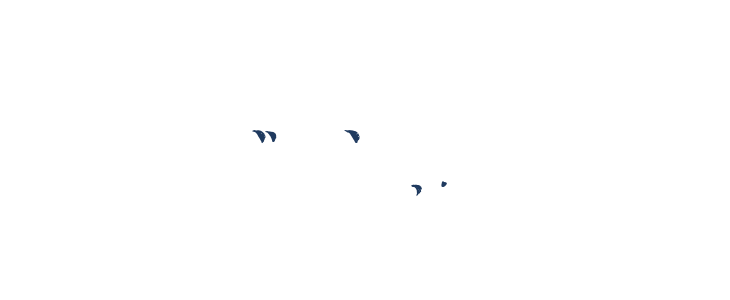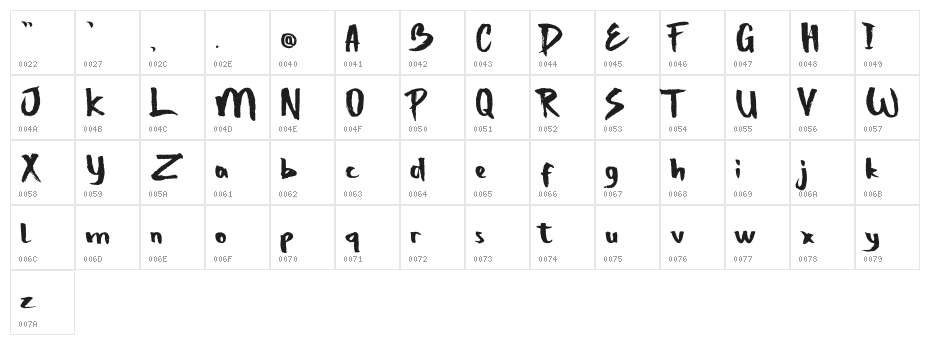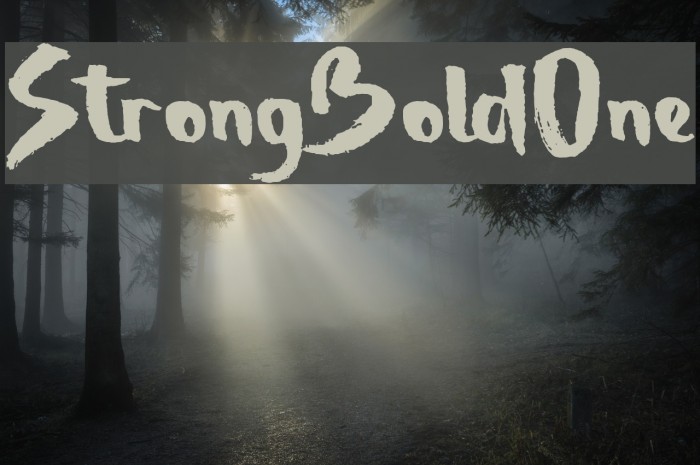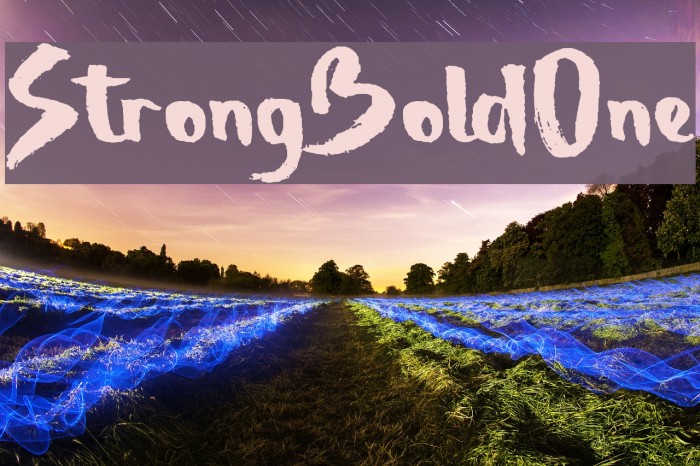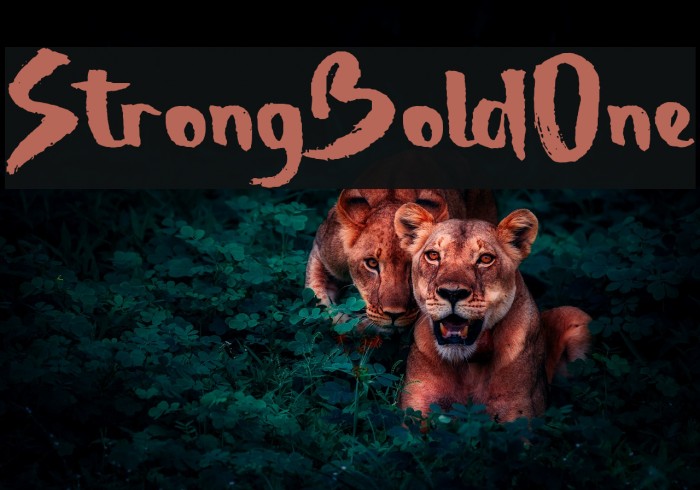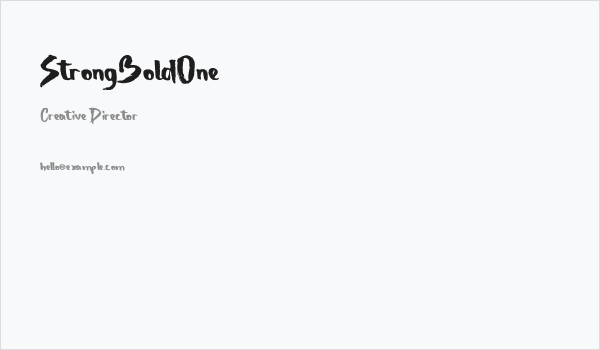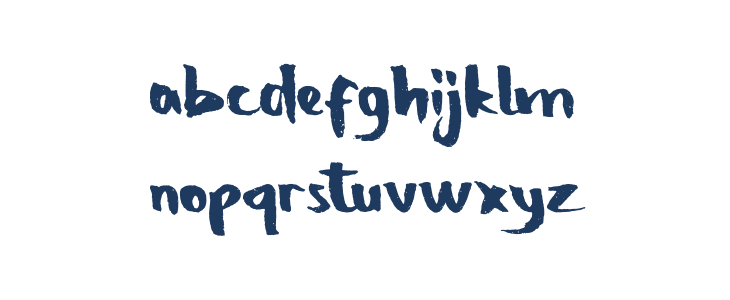
StrongBoldOne Font
StrongBoldOne Description
This font exudes a bold and dynamic presence with its brush-like strokes and expressive character forms. The uppercase letters are robust and commanding, while the lowercase letters maintain a consistent, energetic flow. The strokes are uneven, adding a hand-drawn, artistic quality that enhances its visual impact. The font's style is reminiscent of calligraphy, yet it retains a modern edge, making it versatile for various design applications. Its unique texture and boldness make it stand out, perfect for projects that require a strong visual statement.
| Overall Style | Modern, Artistic |
| Proposed Projects | Ideal for branding, posters, headlines, and creative design projects that require a bold, artistic touch. |